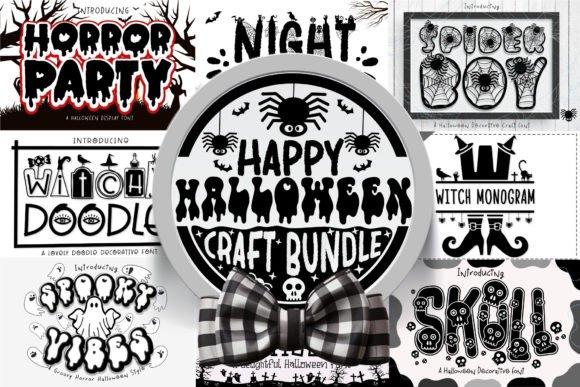
Journey into the realm of spine-tingling creativity with the Happy Halloween Craft Bundle font, a haunting delight designed to cast a spell on your Halloween designs. This eerie font, crafted by Nobu Collections, is the perfect companion for conjuring up bewitching invitations, bone-chilling decorations, and otherworldly creations that will send shivers down their spines.
With its playful yet spooky charm, the Happy Halloween Craft Bundle font will transform your projects into haunting masterpieces. The font's unique letterforms, reminiscent of cobwebs and gravestones, will add a touch of the macabre to your designs, while its easy-to-read style ensures that your messages will be clear and captivating.
Unleash your inner ghoul and let the Happy Halloween Craft Bundle font weave its magic. Create spine-chilling invitations that will have your guests trembling with anticipation, design eerie decorations that will send shivers down their spines, and craft haunting cards and posters that will leave a lasting impression.
So, embrace the spooky season and let the Happy Halloween Craft Bundle font be your creative guide. Cast a spell on your Halloween designs and create unforgettable projects that will haunt your friends and family long after the last trick-or-treater has disappeared into the night.